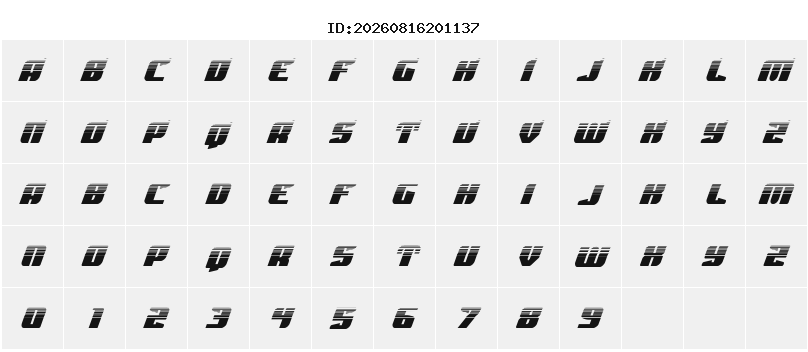
• Font Name: Spartaco Halftone
• Full Font Name: Spartaco Halftone
About Spartaco Halftone.ttf
Spartaco Halftone.ttf is a modern, elegant sans-serif font designed for ultimate readability and visual harmony. Perfect for branding, headlines, web design, and print materials.